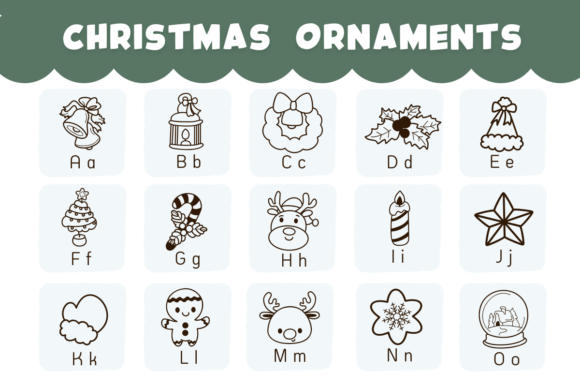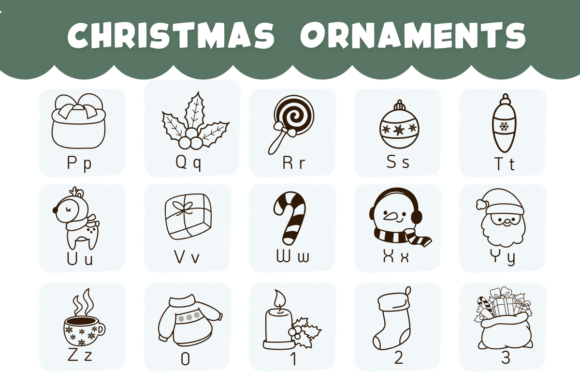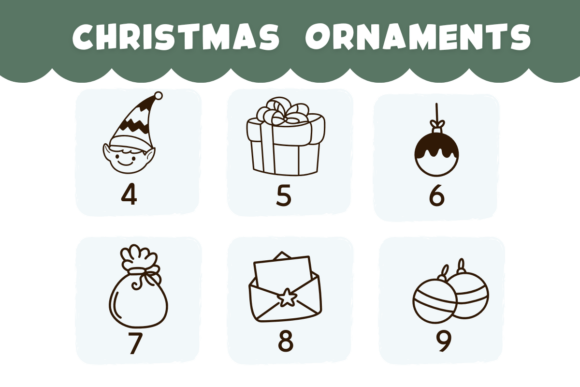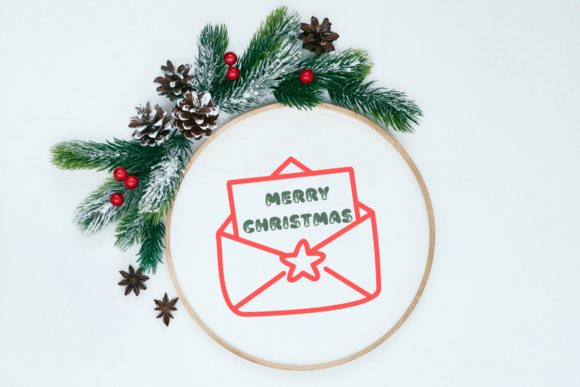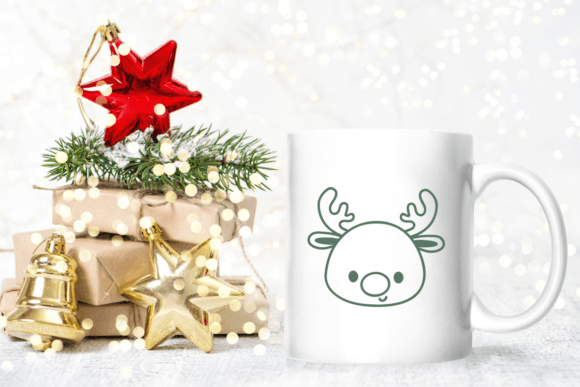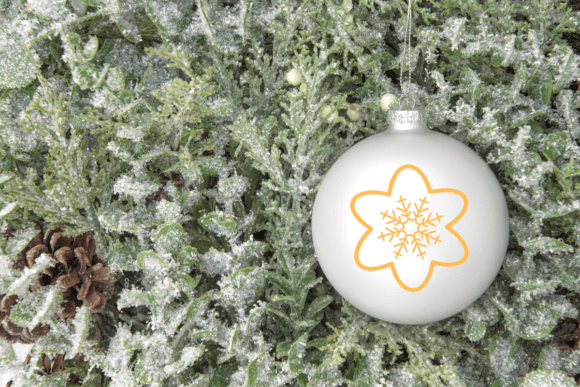
Deck the Halls with Creativity: Unwrapping the Magic of Christmas Ornaments Font
Have you ever found yourself rummaging through your craft supplies, searching for the perfect embellishment to elevate your DIY project? The excitement of bringing a new idea to life is exhilarating, and the right font can be the icing on the cake. For designers and crafty enthusiasts, Christmas Ornaments Font is a treasure trove of festive flair, adding a touch of whimsy to any project.
This dingbats font is designed to capture the essence of the holiday season, making it an ideal choice for wedding invitations, DIY crafts, decorations, logos, and many other creative endeavors. With its playful, eye-catching design, the Christmas Ornaments Font is a valuable addition to any designer’s toolkit, offering endless possibilities for self-expression and creativity.
Key Features of Christmas Ornaments Font
- Unique Characteristics: This font features a whimsical and festive design, perfect for Christmas and winter-themed projects. It includes ornaments, snowflakes, and other winter elements.
Designer Review: Christmas Ornaments Font
Overall, I’d say the Christmas Ornaments Font is a fun and festive addition to any holiday design project. Here are some things that work well: ✨
- The font’s playful, whimsical feel is perfect for capturing the magic of the holiday season.
- The ornaments and patterns included in the font add a nice touch of depth and visual interest.
- The font is well-suited for use in titles, headings, and other prominent design elements.
- The font may be a bit too ornate for some designs, potentially overwhelming the surrounding elements.
- The ornaments and patterns may not be easily editable or customizable, which could limit their use in more complex designs.
- The font’s overall aesthetic may not be to every designer’s taste, so it’s essential to use it in a way that feels authentic to your brand or project.
Overall, I think the Christmas Ornaments Font is a great choice for designers looking to add a touch of holiday cheer to their projects. While it may have some limitations, its unique charm and versatility make it a valuable addition to any designer’s toolkit.
The Christmas Ornaments Font is perfect for:
Creating festive holiday cards and invitations.
Designing Christmas party decorations and signage.
Adding a touch of holiday cheer to social media posts and websites.
To get the most out of the Christmas Ornaments Font, consider the following tips:
Use it in combination with other festive fonts for a cohesive look.
Pair it with bold, bright colors to add depth and dimension.
Q: What is the recommended font size for using the Christmas Ornaments Font?
The recommended font size for using the Christmas Ornaments Font is between 12pt and 24pt. This will ensure that the font is legible and visually appealing in most design applications. However, you can adjust the font size to suit your specific design needs.